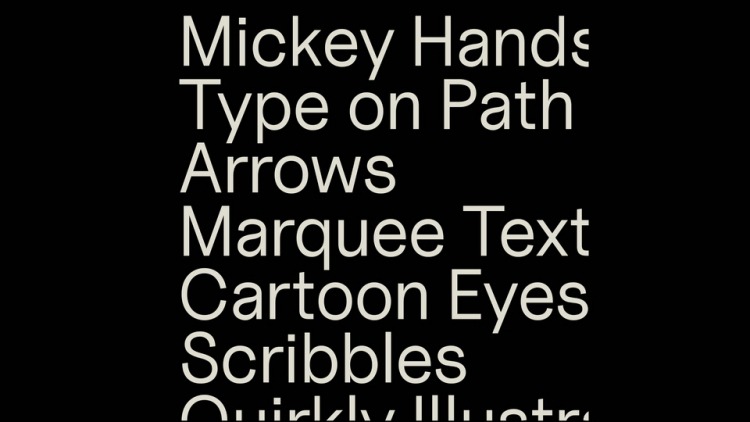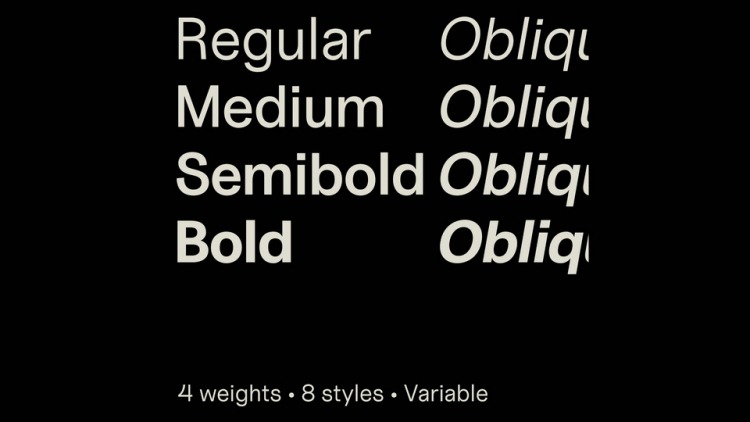
Uncut Sans Font
This is a mellow sans serif typeface package by Kasper Nordkvist. designed with absolutely no investigation or research into any other typefaces from any specific time period. it tries to capture the essence of nothing, really. There is no deeper meaning behind design, but hopefully it’s still interesting enough to be taken into consideration for your next project.